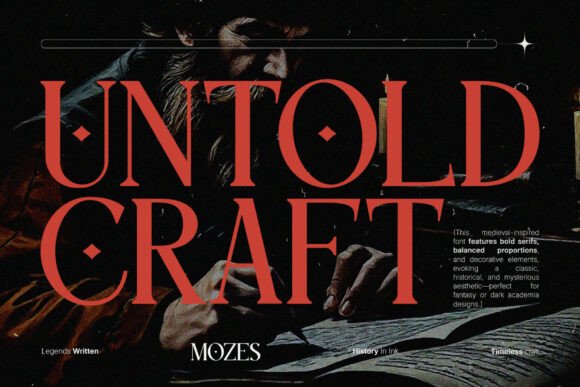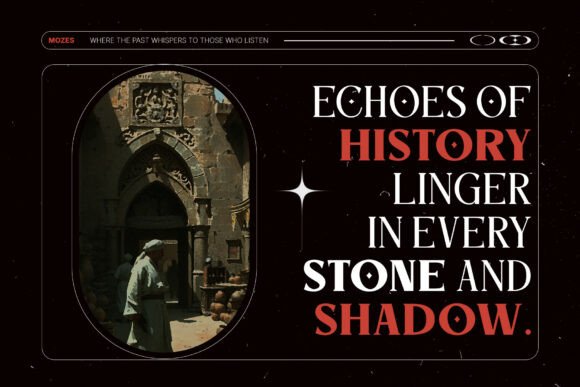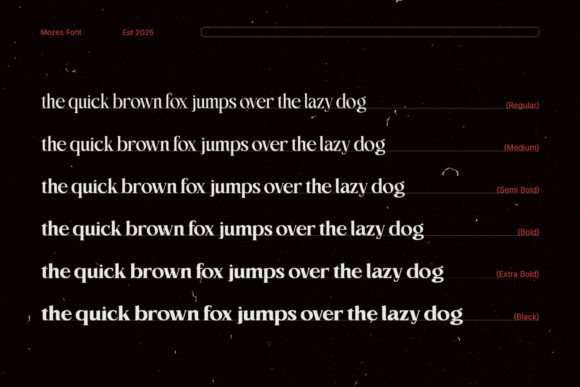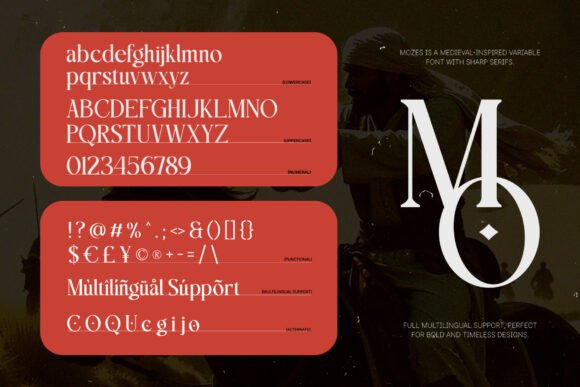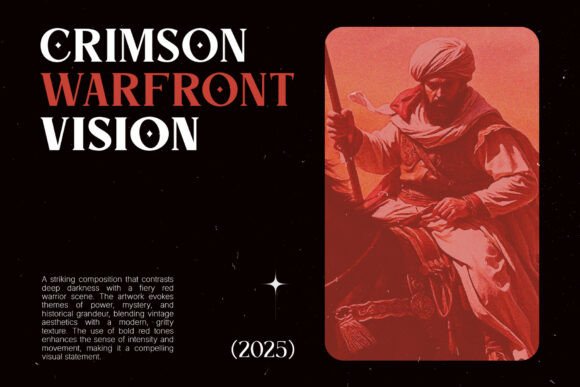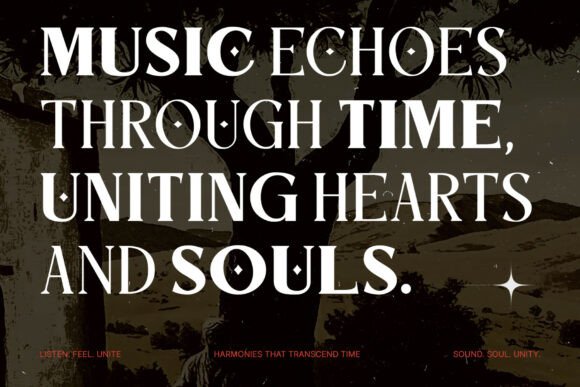
Introduction to Mozes Regular Font
Mozes is a powerful variable serif font that blends bold expression with classical elegance.
With dynamic weight flexibility, sharp serifs, and strong contrast, Mozes is designed for impactful visuals — from branding and editorial headlines to posters and packaging Its historical undertone and modern execution make it perfect for creators seeking drama, heritage, and adaptability in one type system.
Key Features of Mozes Regular Font
Why Choose Mozes Regular Font?